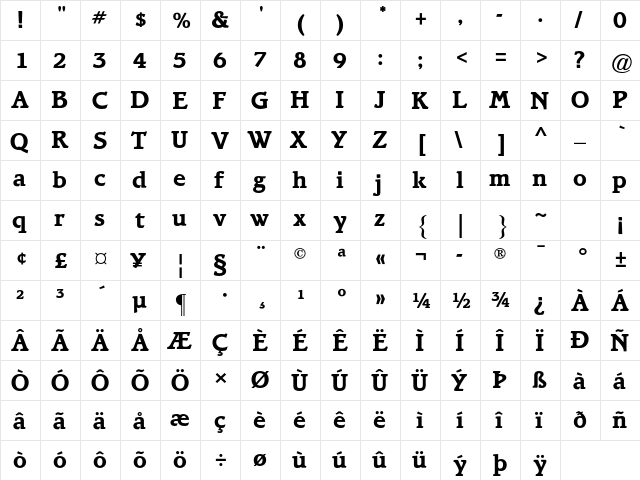
Bramley Std Bold
| Designer | Alan Meeks |
Design Context for Bramley Std Typeface
Bramley Std offers clean, dependable letterforms without strong stylistic allegiance, making it a practical choice for designers who need flexibility. The heavy weight commands attention and anchors typographic hierarchies.